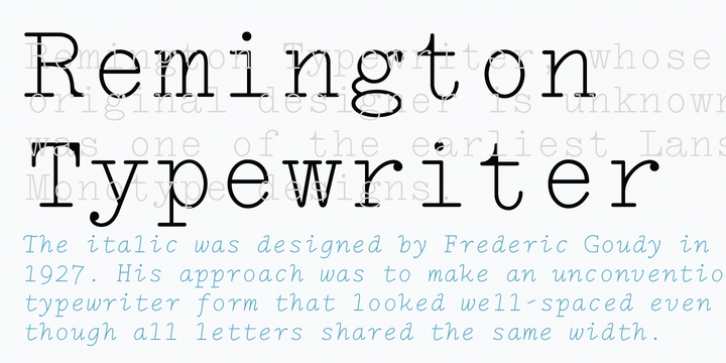
LTC Remington Typewriter was designed by Frederic Goudy and published by Lanston Type Company. LTC Remington Typewriter contains 4 styles and family package options.
Remington Typewriter, whose original designer is unknown, was one of the earliest Lanston Monotype designs.
The italic was designed by Frederic Goudy in 1927. His approach was to make an unconventional typewriter form that looked well-spaced even though all letters shared the same width.